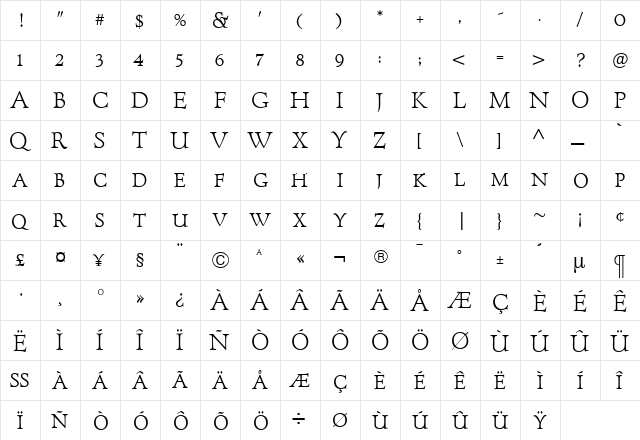
ForumTitlingMedium Roman
Design Context for ForumTitlingMedium Typeface
ForumTitlingMedium takes a measured approach to typography — its balanced proportions and neutral character make it a reliable workhorse for both digital and print work.